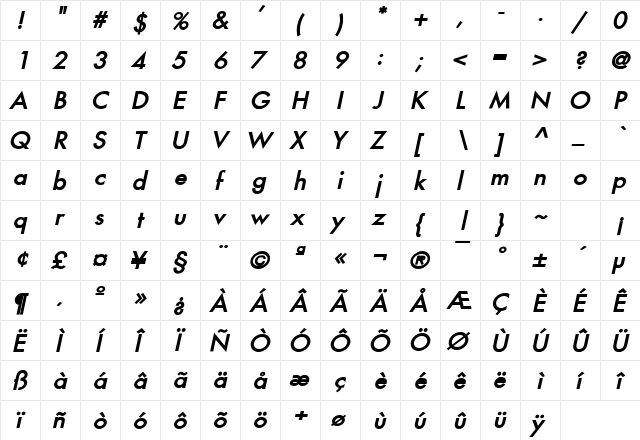
Fusi Bold Italic
Design Context for Fusi Typeface
Fusi is a composed and adaptable typeface that performs quietly and consistently across a wide range of design contexts. The slanted form adds forward momentum and visual energy. The heavy weight commands attention and anchors typographic hierarchies.
Pro Tip: Try Fusi for annotation and caption copy alongside an upright companion — the contrast in angle creates a dynamic but ordered typographic system.